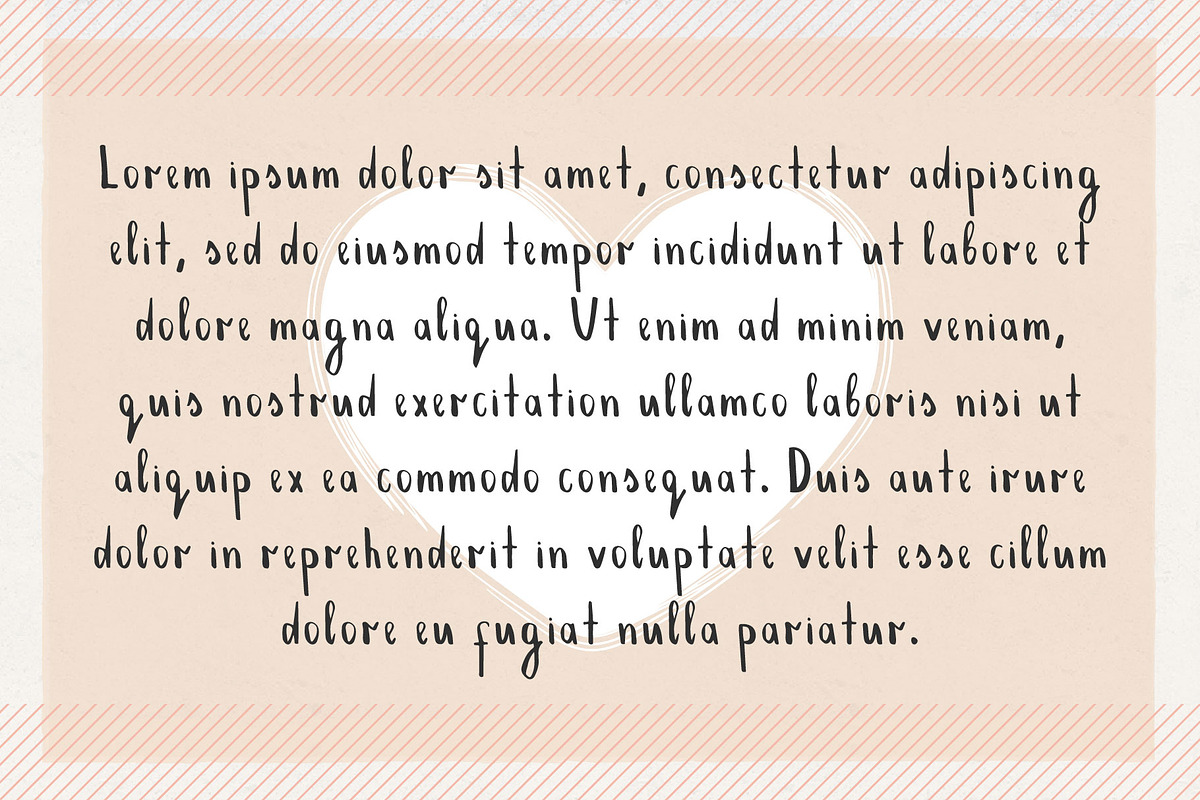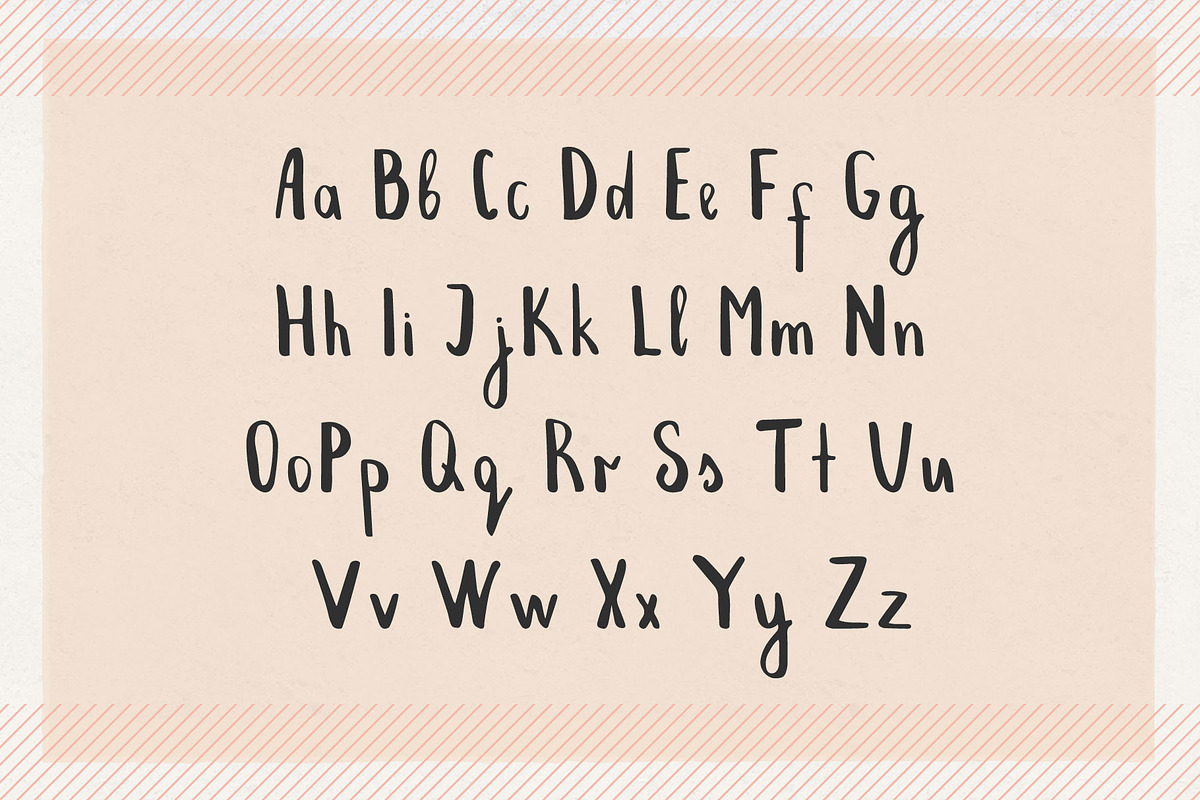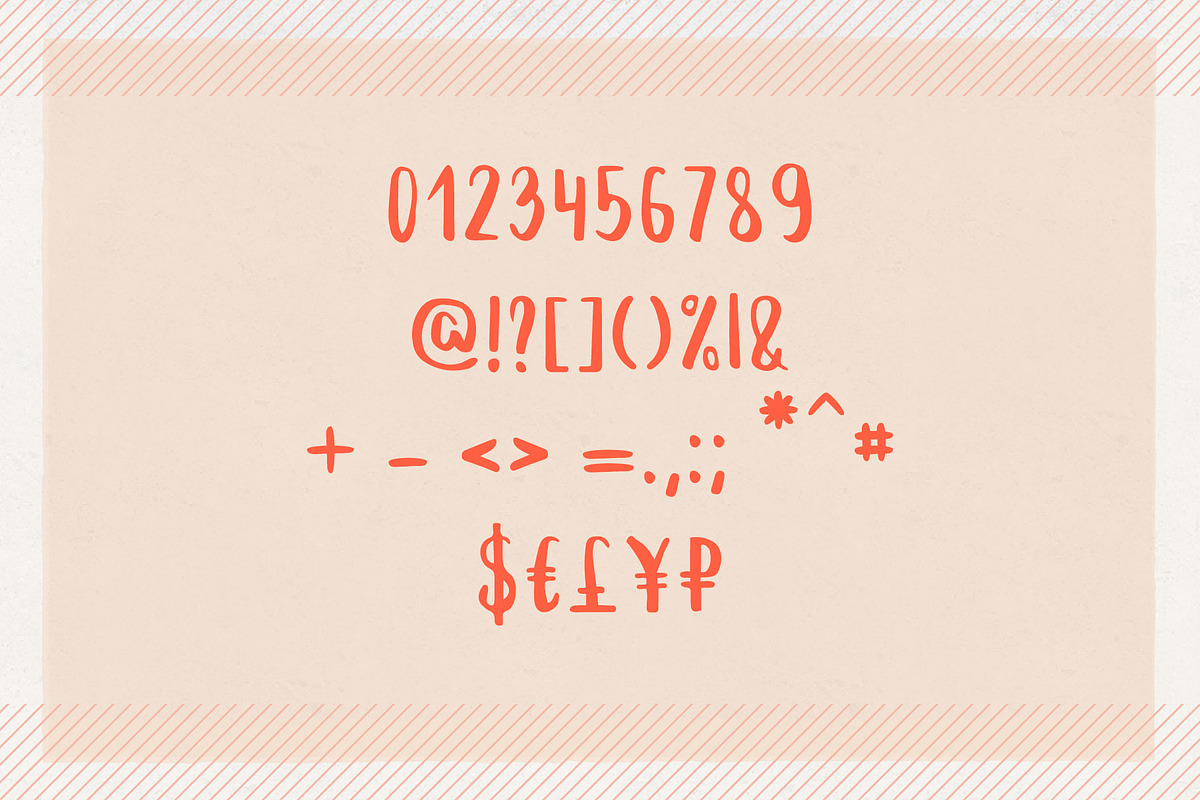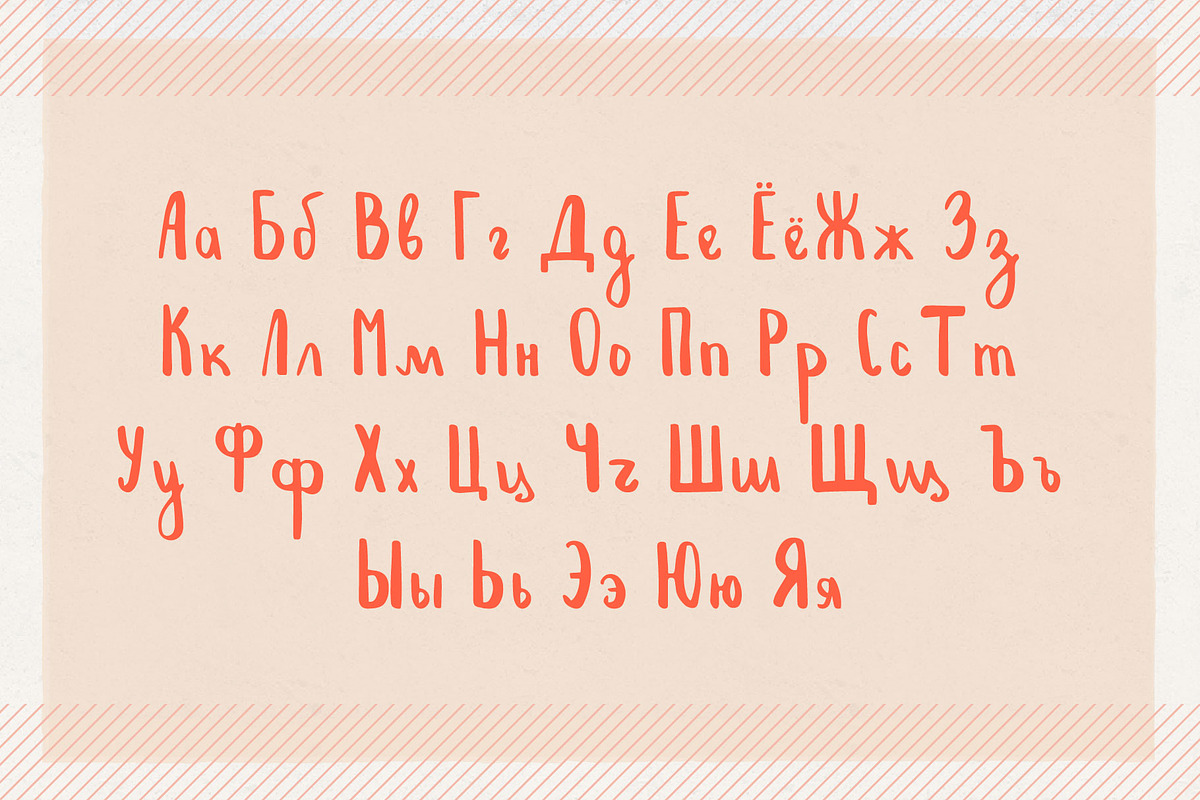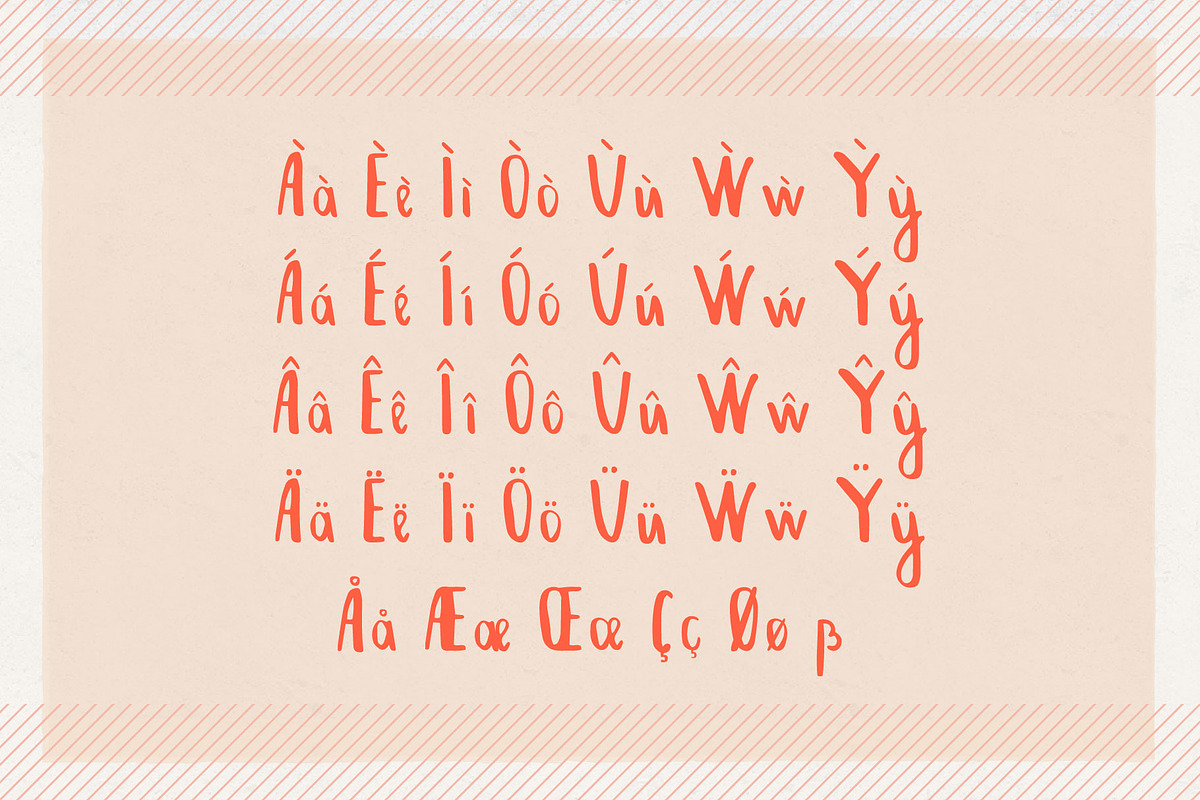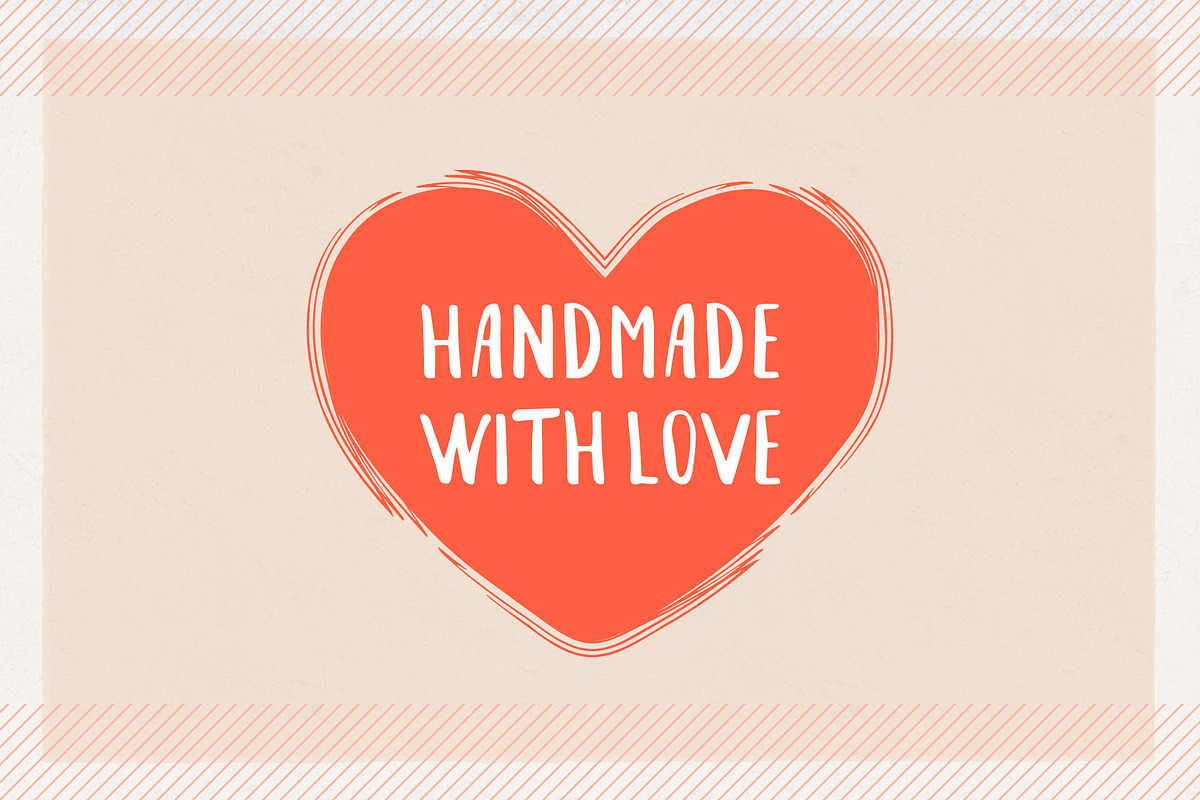
Fontanka Font
Character set A-Z (Uppercase & Lowcase)
Cyrillic Alphabet (Uppercase & Lowcase)
- Character set A-Z (Uppercase & Lowcase)
- Cyrillic Alphabet (Uppercase & Lowcase)
- Punctuation
- Accented characters
Fontanka Font by Anatartan Design fits naturally into Branding, posters, packaging, typography.